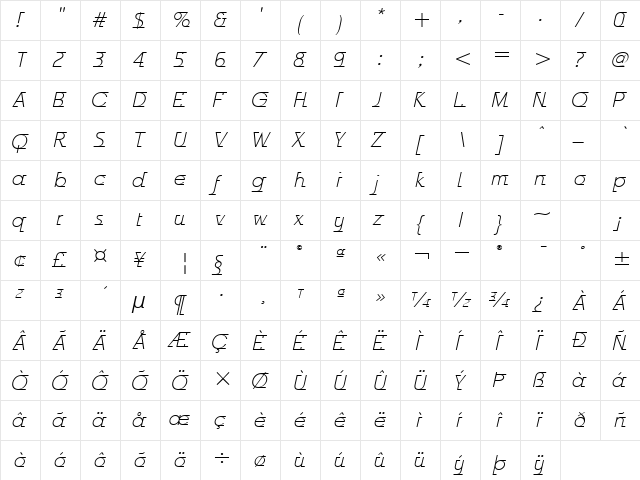
Odyssee ITC TT LightItalic
Design Context for Odyssee ITC TT Typeface
Odyssee ITC TT is a composed and adaptable typeface that performs quietly and consistently across a wide range of design contexts. Its italic angle brings a sense of urgency and motion to the letterforms. The delicate stroke weight brings airiness and refinement to layouts.
Pro Tip: Use Odyssee ITC TT for emphasis, pull quotes, and subheadings where its slanted energy can add rhythm to the layout.